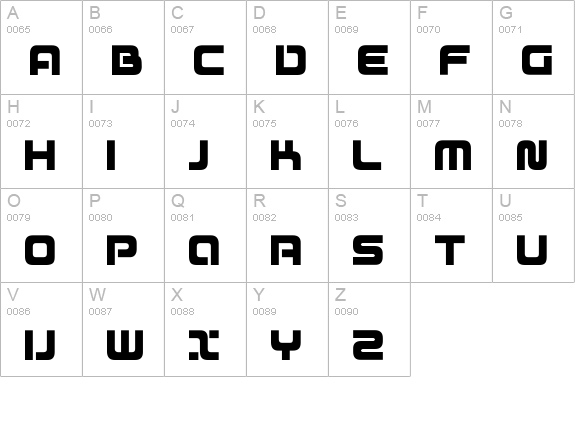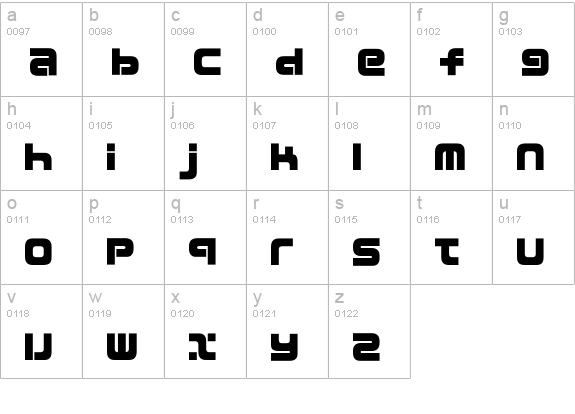
D3 Mouldism Round Alphabet Font Details
Introducing the captivating D3 Mouldism Round Alphabet font, a stunning addition to any creative project. This unique and eye-catching typeface is meticulously crafted to bring a modern twist to the classic alphabet design. With its rounded edges and playful curves, D3 Mouldism Round Alphabet font exudes a sense of joy and excitement. Each letter is thoughtfully designed to seamlessly connect with one another, creating a harmonious flow that is visually pleasing to the eye. The versatility of this font is truly remarkable. Whether you're designing a logo, creating a poster, or even crafting a social media post, D3 Mouldism Round Alphabet font will effortlessly elevate your work to new heights. Its bold and confident appearance will grab attention and leave a lasting impression on your audience. But what truly sets D3 Mouldism Round Alphabet font apart is its accessibility. This font is freely available to download at FontsMarket.com, allowing designers and enthusiasts alike to easily incorporate it into their projects without any limitations. It's a font that empowers creativity and encourages experimentation. Embrace the boundless possibilities that D3 Mouldism Round Alphabet font offers. Let it breathe life into your designs, infusing them with a sense of vibrancy and freshness. With its versatility, captivating design, and accessibility, this font is a must-have for any designer seeking to make a lasting impact. Download D3 Mouldism Round Alphabet font today from FontsMarket.com and unlock a world of creativity at your fingertips. Unleash your imagination and watch as your designs come to life with this remarkable font. Don't miss out on this incredible opportunity to elevate your work and stand out from the crowd.